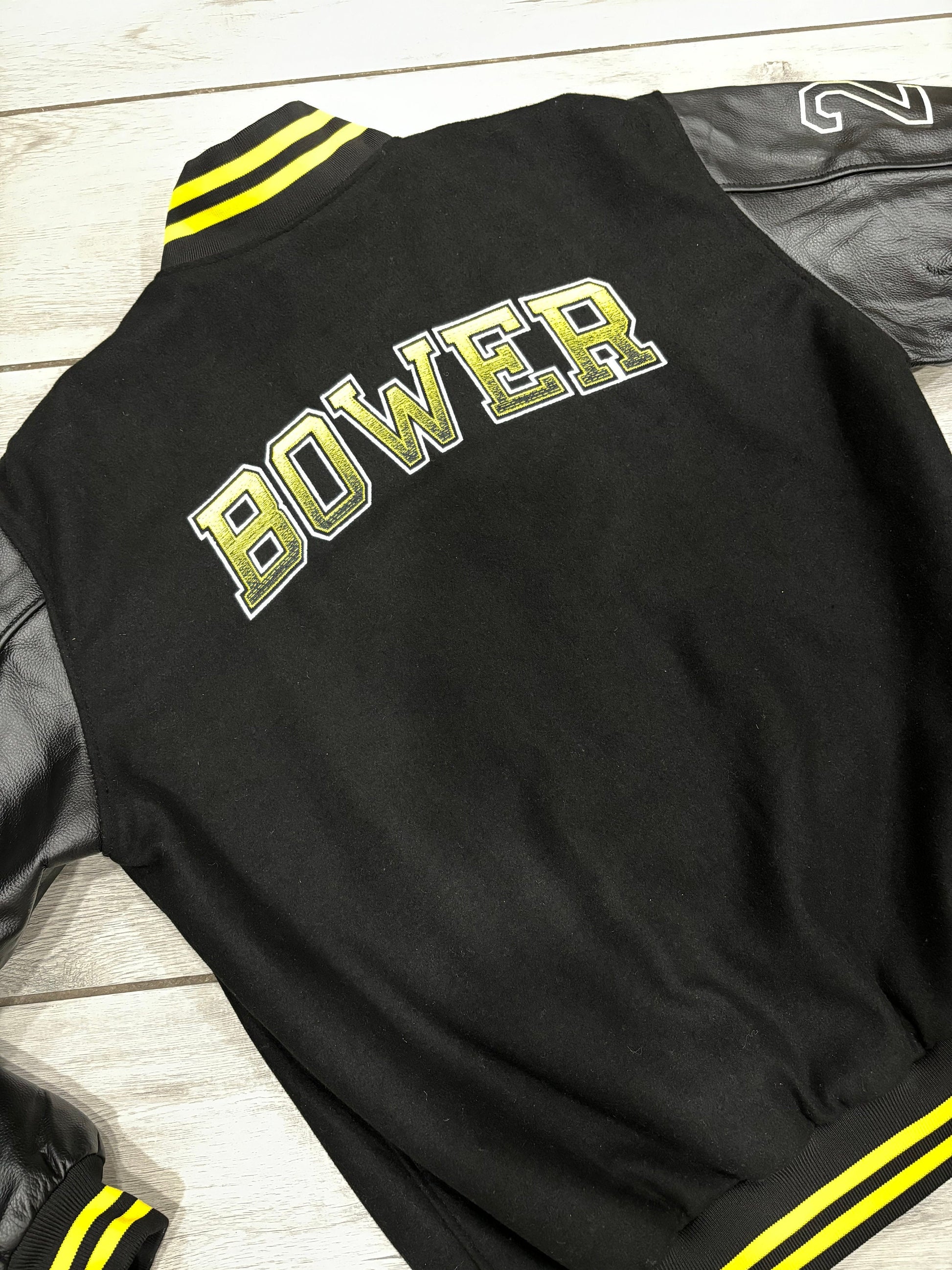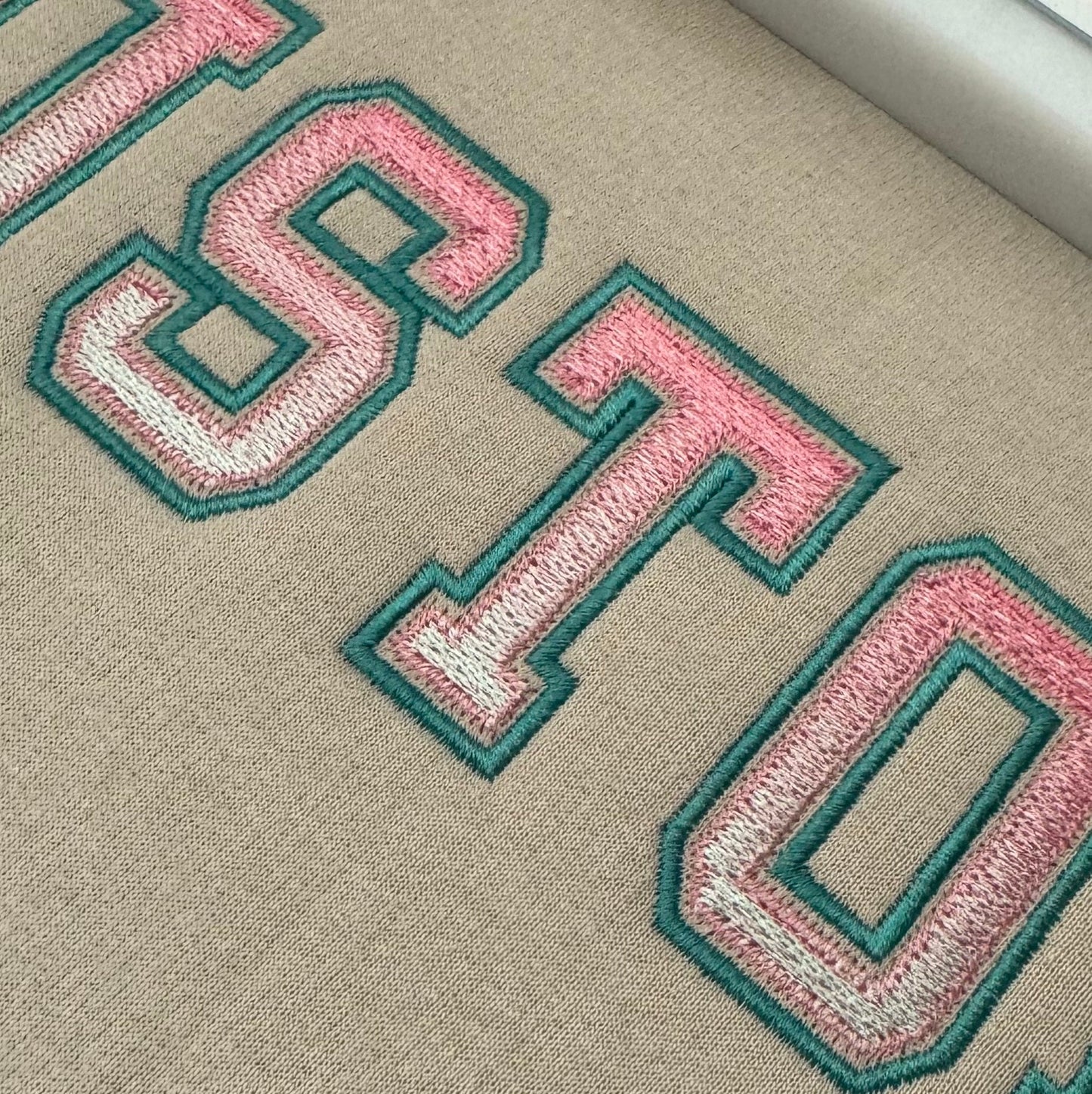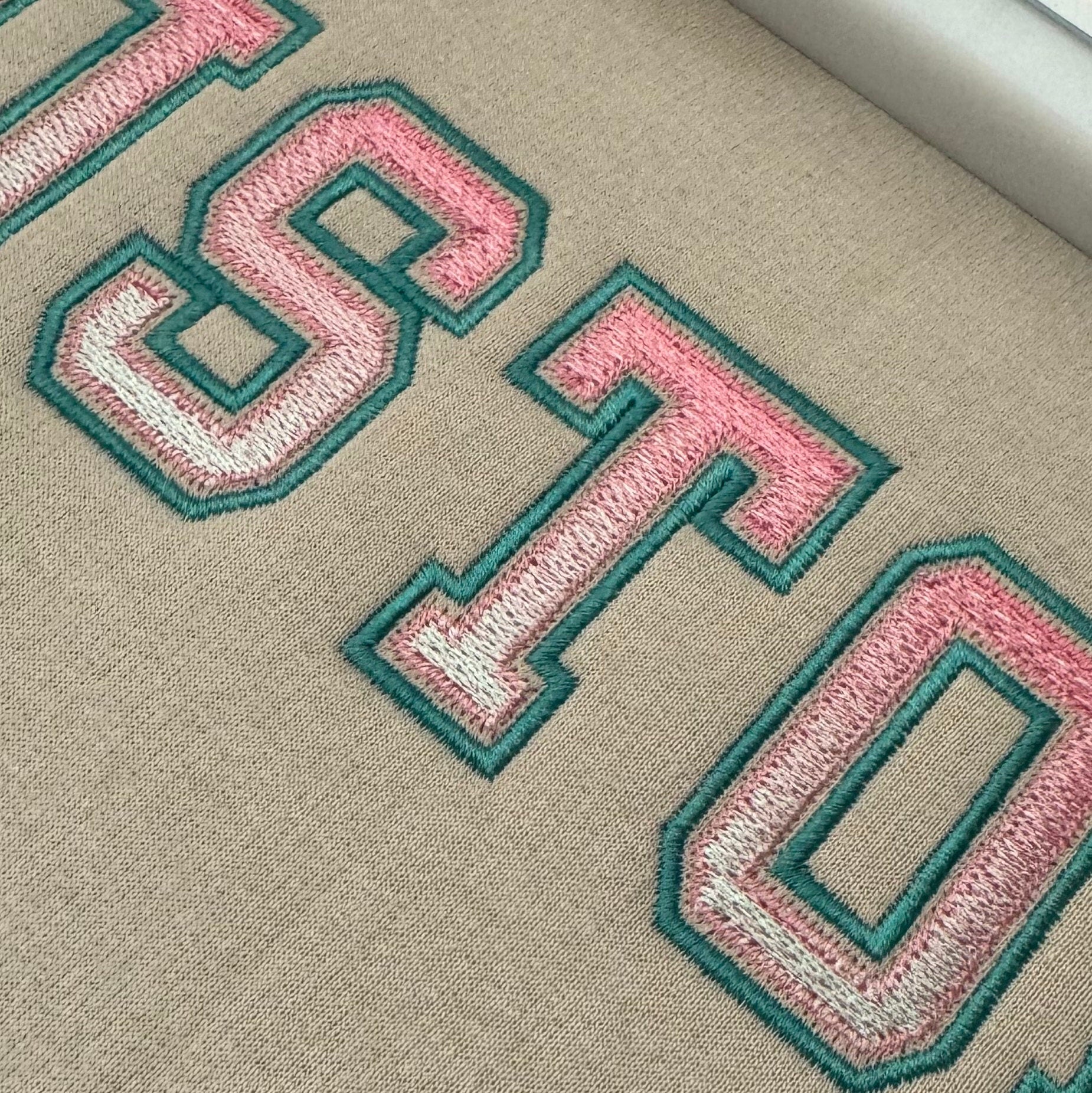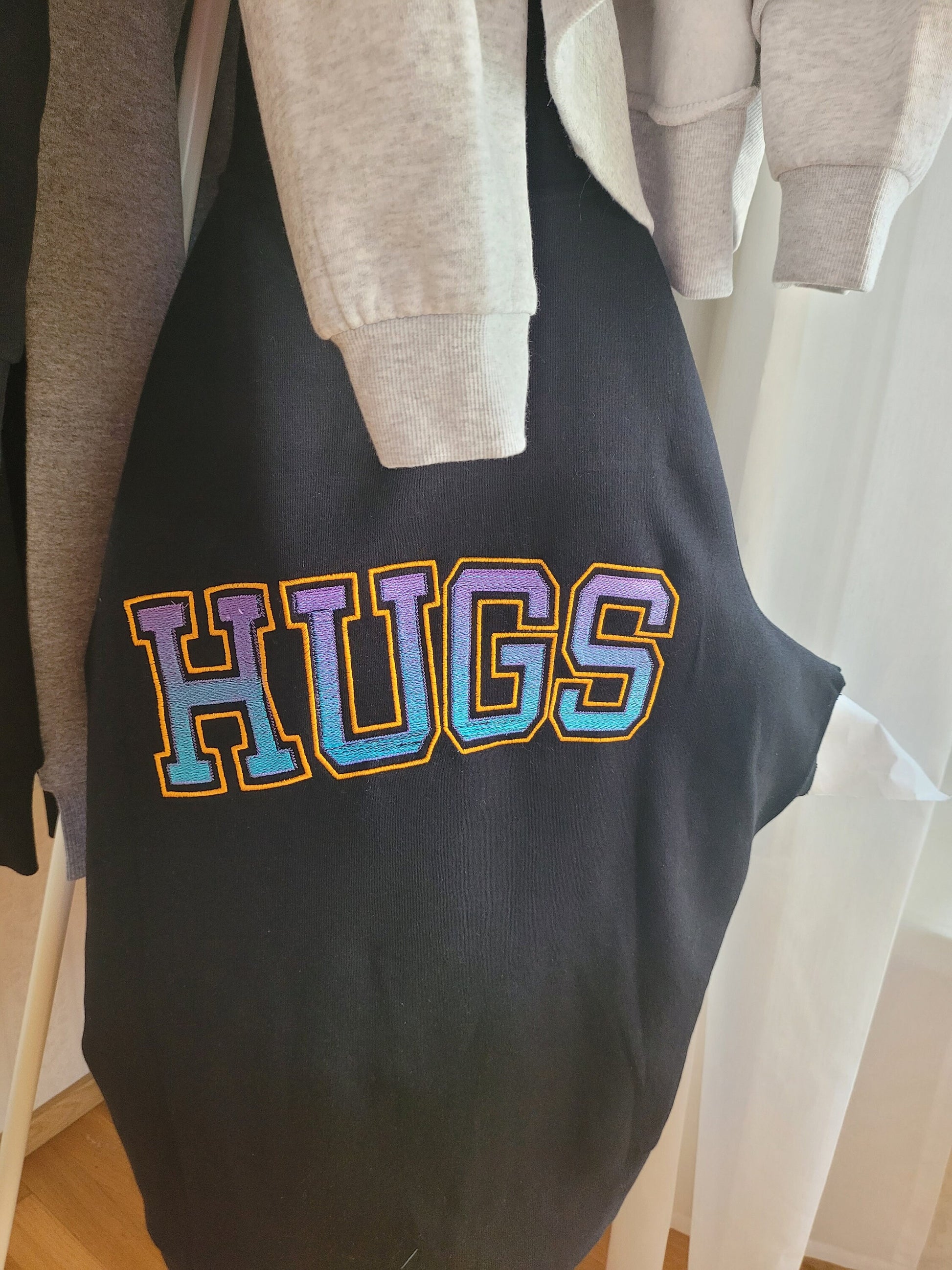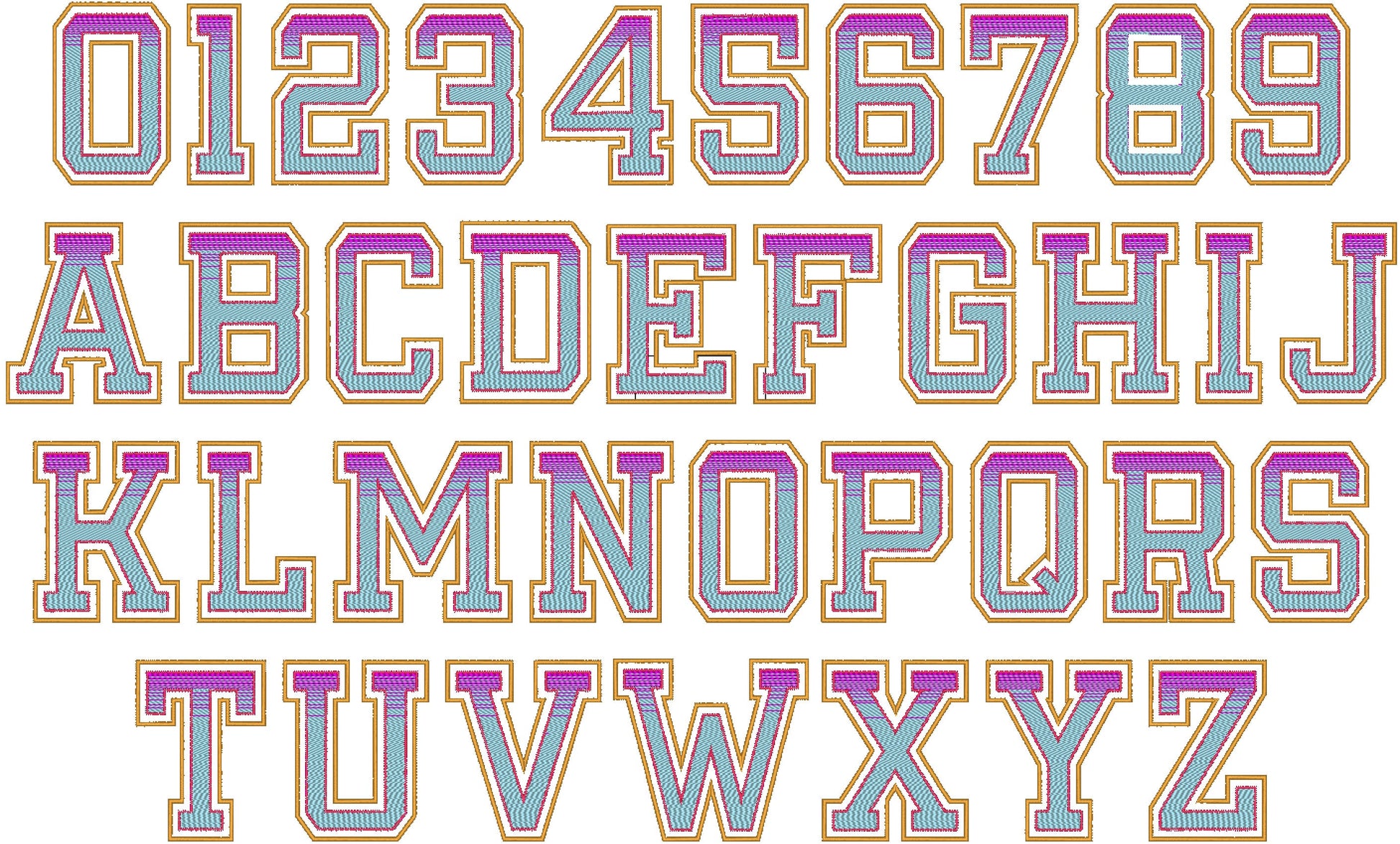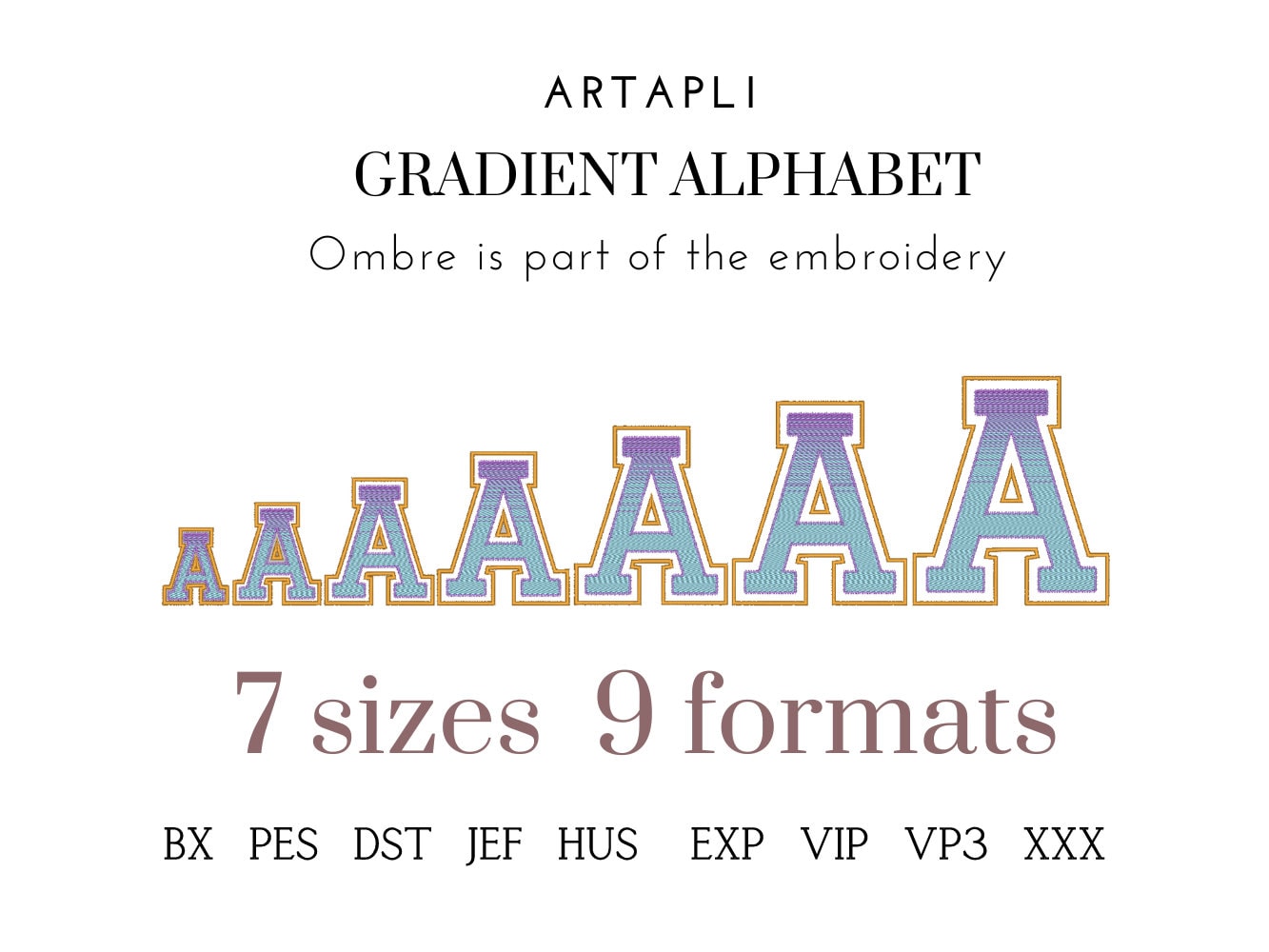
Iridescent 2-Color Sororities Varsity Greek Font Applique
An iridescent varsity block font stitched with two ordinary thread colors that blend into a gradient. Great for sorority, team and school names.
No special thread: one side of each letter is stitched mostly in one color and the other side in the second. Uppercase letters and numbers in nine sizes: 1.5, 2, 2.5, 3.5, 4, 4.5, 5.5, 6 and 7 inches.